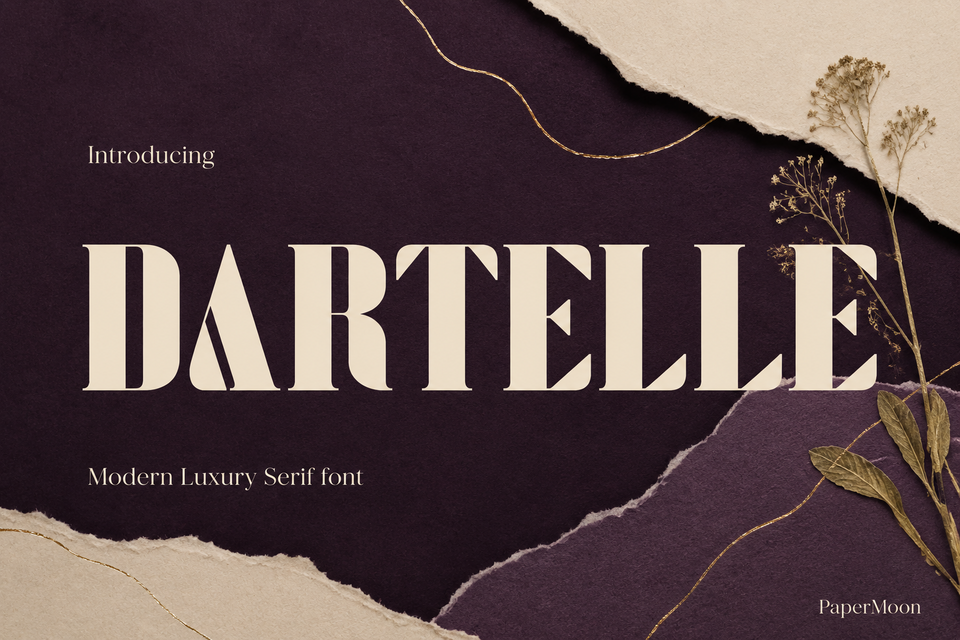
Dartelle - Modern Luxury Serif Font Duo
Dartelle is a modern luxury serif font built with refined proportions, elegant contrast, and a polished editorial character. It is a professional choice for any creative endeavor - from chic lifestyle branding and logotypes to advertisements, stationery, and product design. This elegant serif font brings a sophisticated, fashionable touch to every project, designed to make your work stand out with quiet confidence.
This luxurious serif typeface ships as a Font Duo in two styles - Regular and Italic - a complete branding toolkit in one download. Use the Regular for confident display headlines, corporate brand work, and logo lockups; reach for the Italic when you want movement and emphasis in editorial spreads, magazine layouts, and invitation suites. Each style carries 291+ glyphs covering uppercase, lowercase, numerals, punctuation, and Western European accented characters.
- Two full styles, Regular + Italic - an upright voice for statements and a slanted voice for motion and drama.
- 291+ glyphs per style - complete character set with Western European (Latin-1 based) accent support for French, Spanish, German, Italian, Portuguese, Dutch, Swedish, and more.
- Stylistic alternates (ss01, ss02, salt, aalt) - switch letterforms for a personalized, high-fashion look in logos and display settings.
- Ligatures (liga + dlig) - refined letter joins for smooth, professional typesetting.